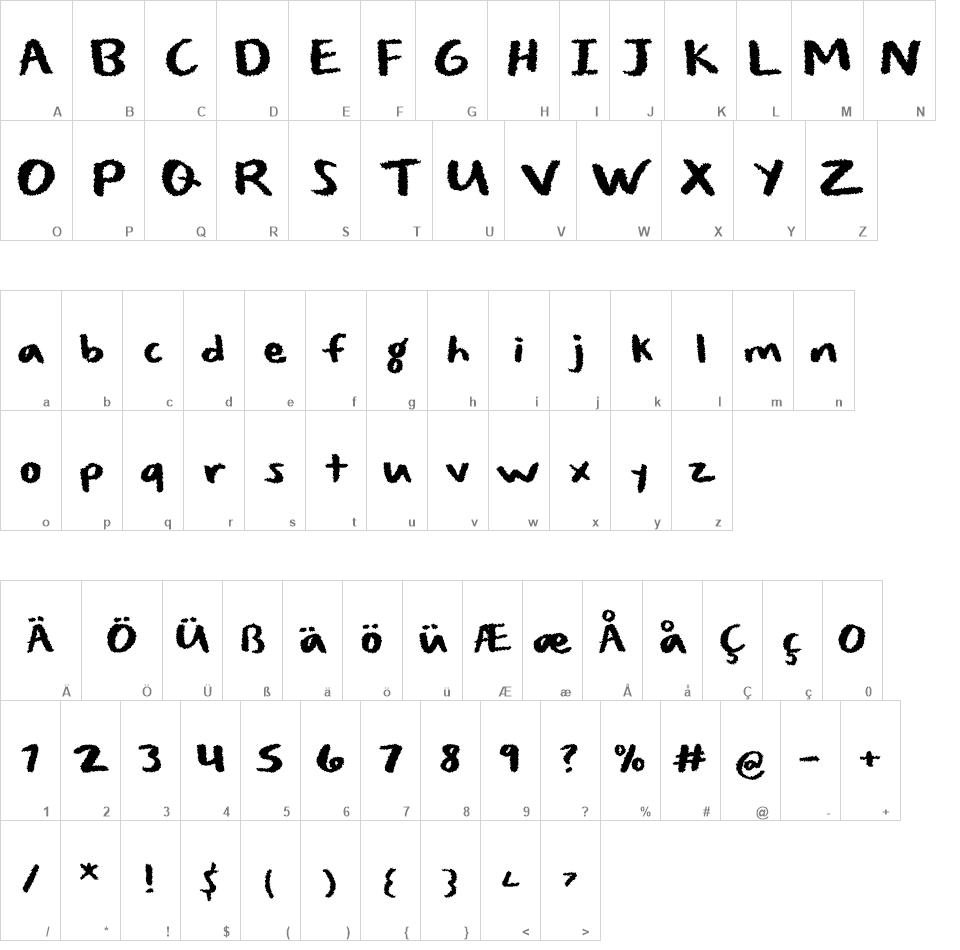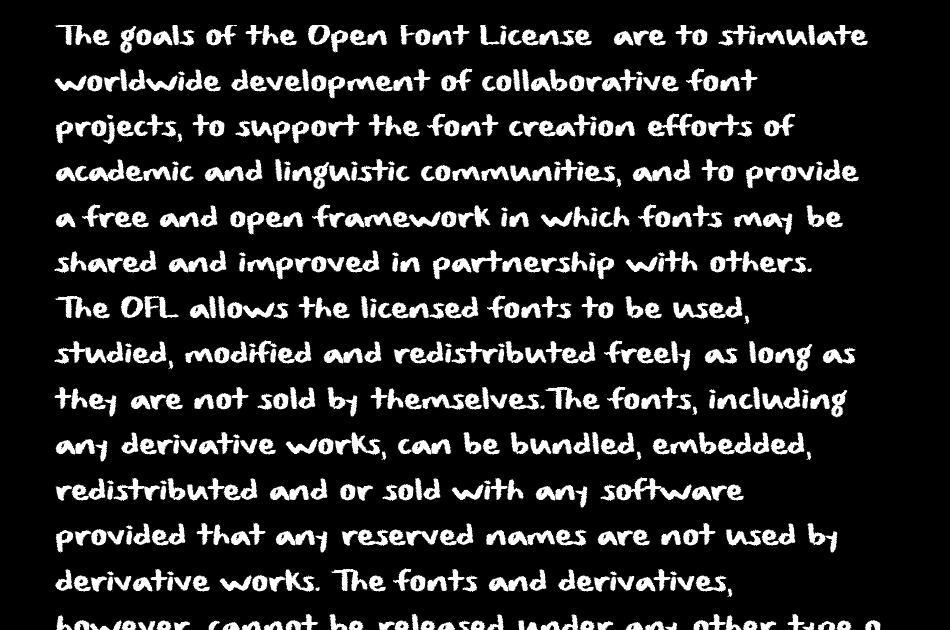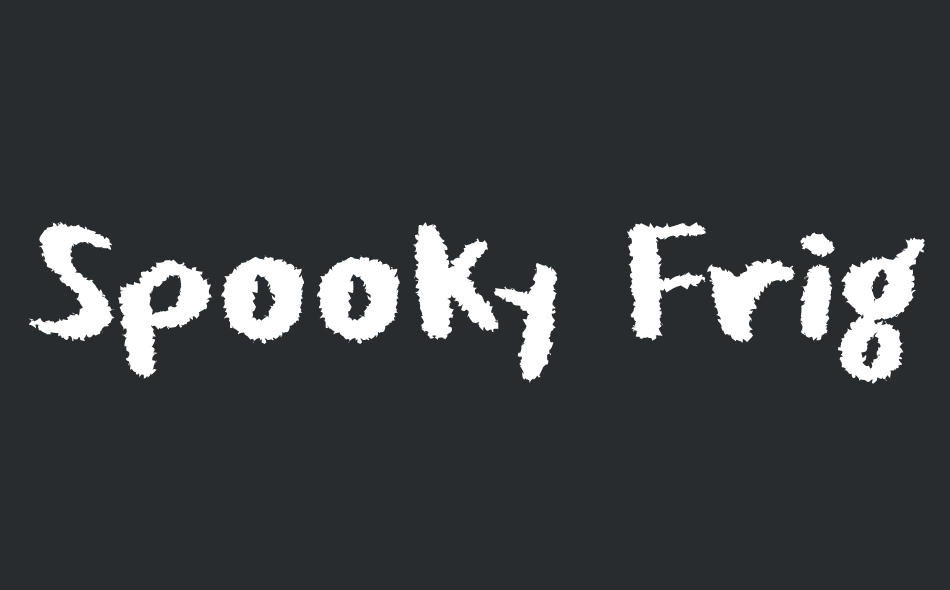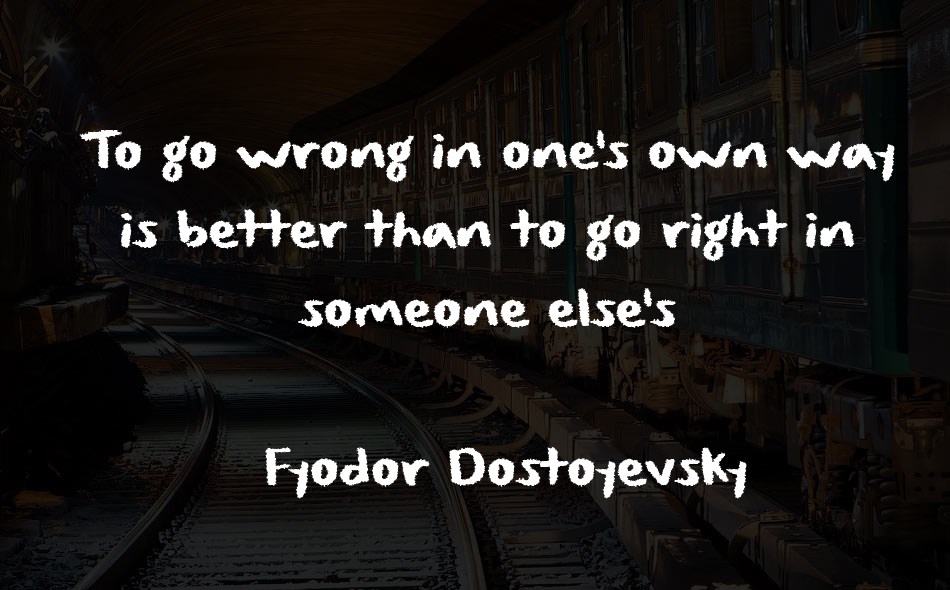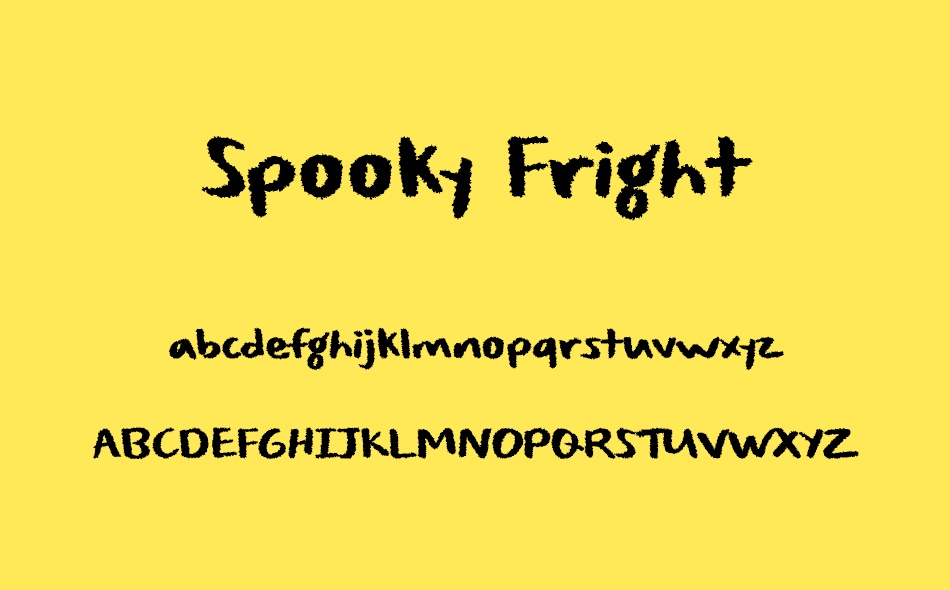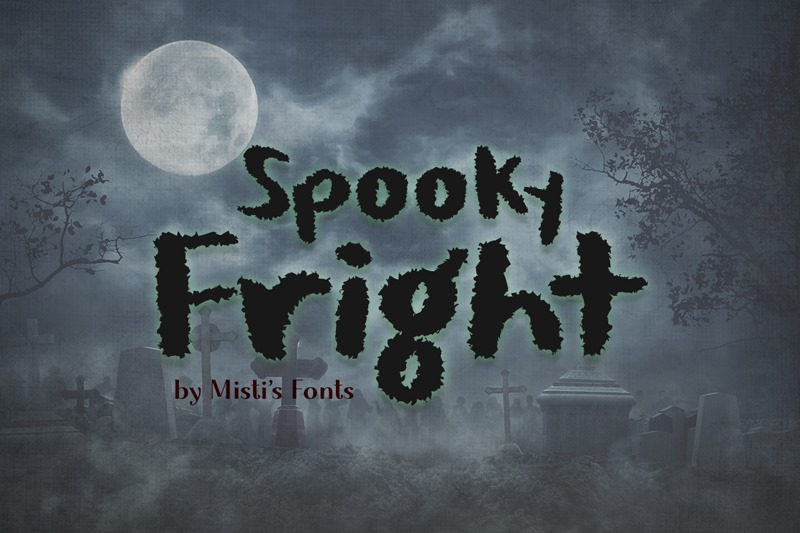
Spooky Fright font
Spooky Fright is a whimsical, chalk-like typeface that is perfect for your Halloween projects. Looks great on posters, website banners, advertisements and so much more! It would also look amazing for haunted house signs, horror-themed creations, and other spooky designs.